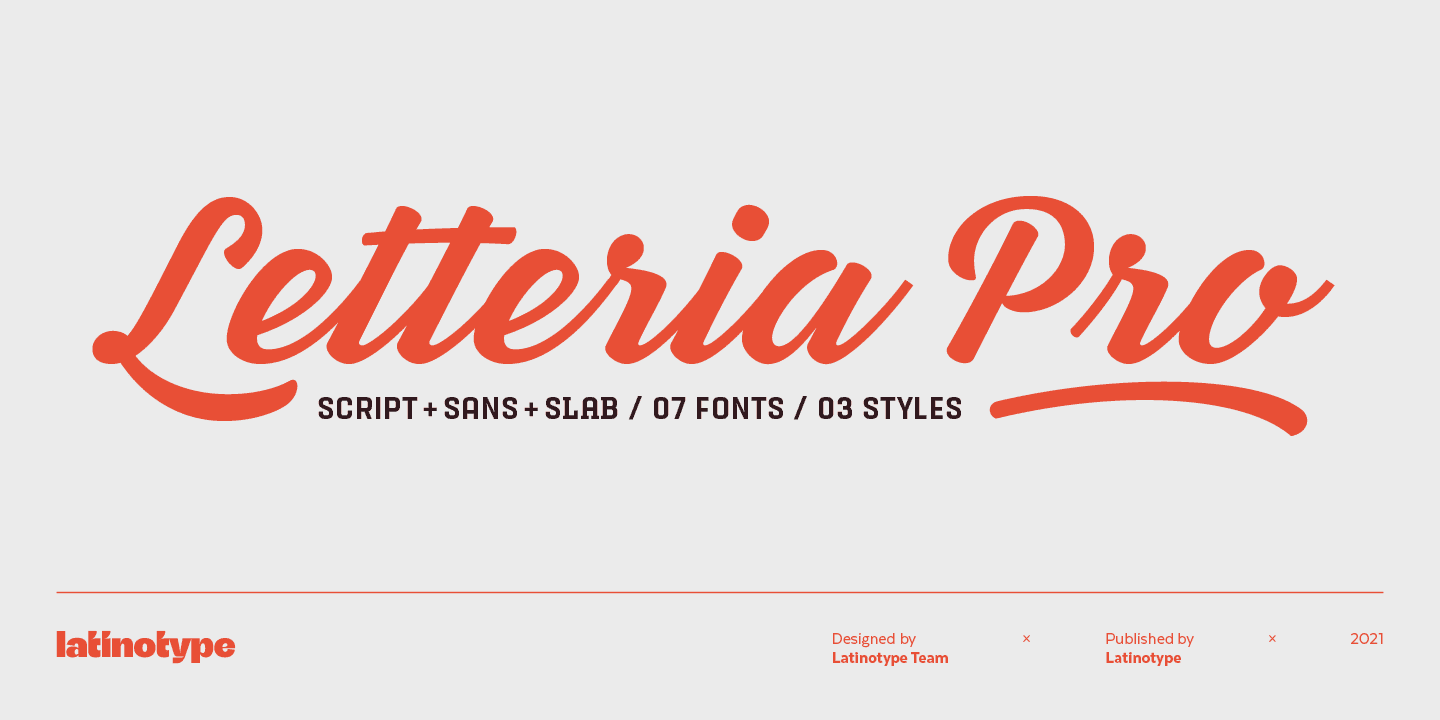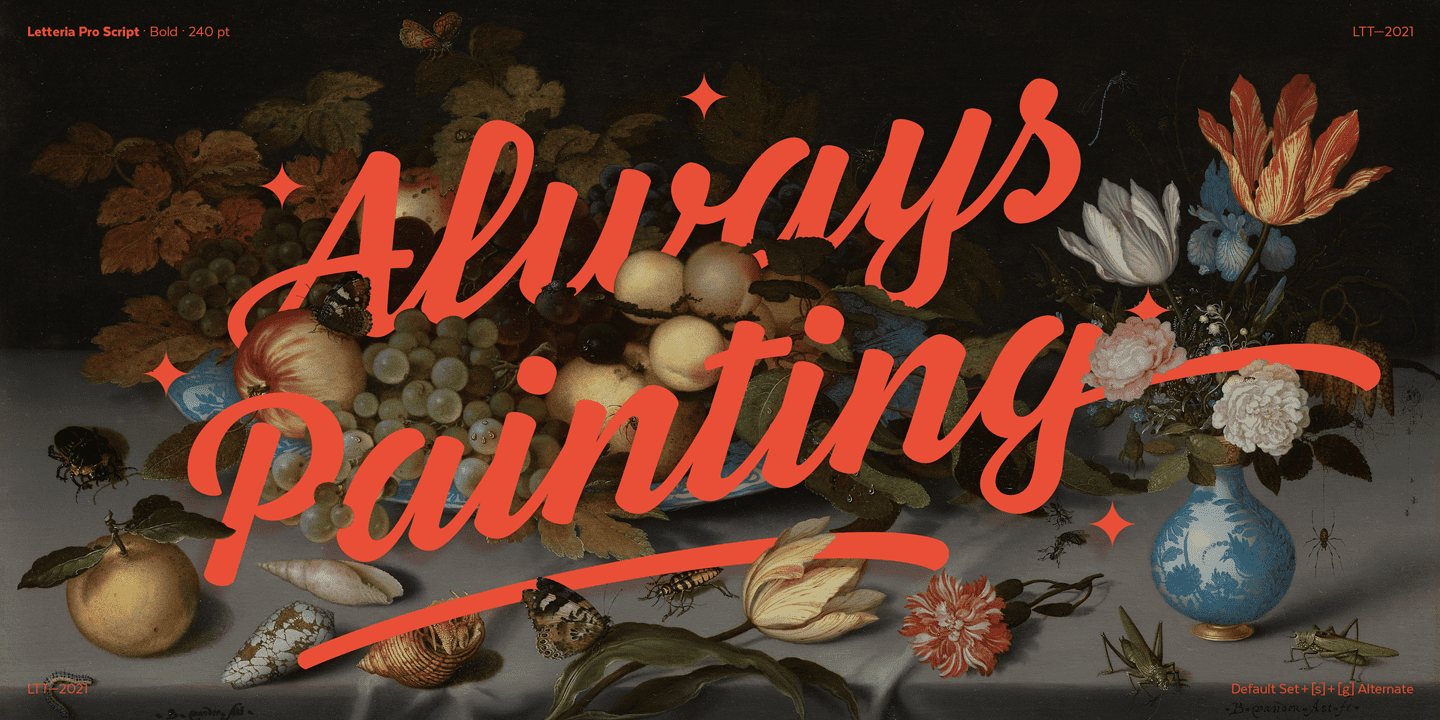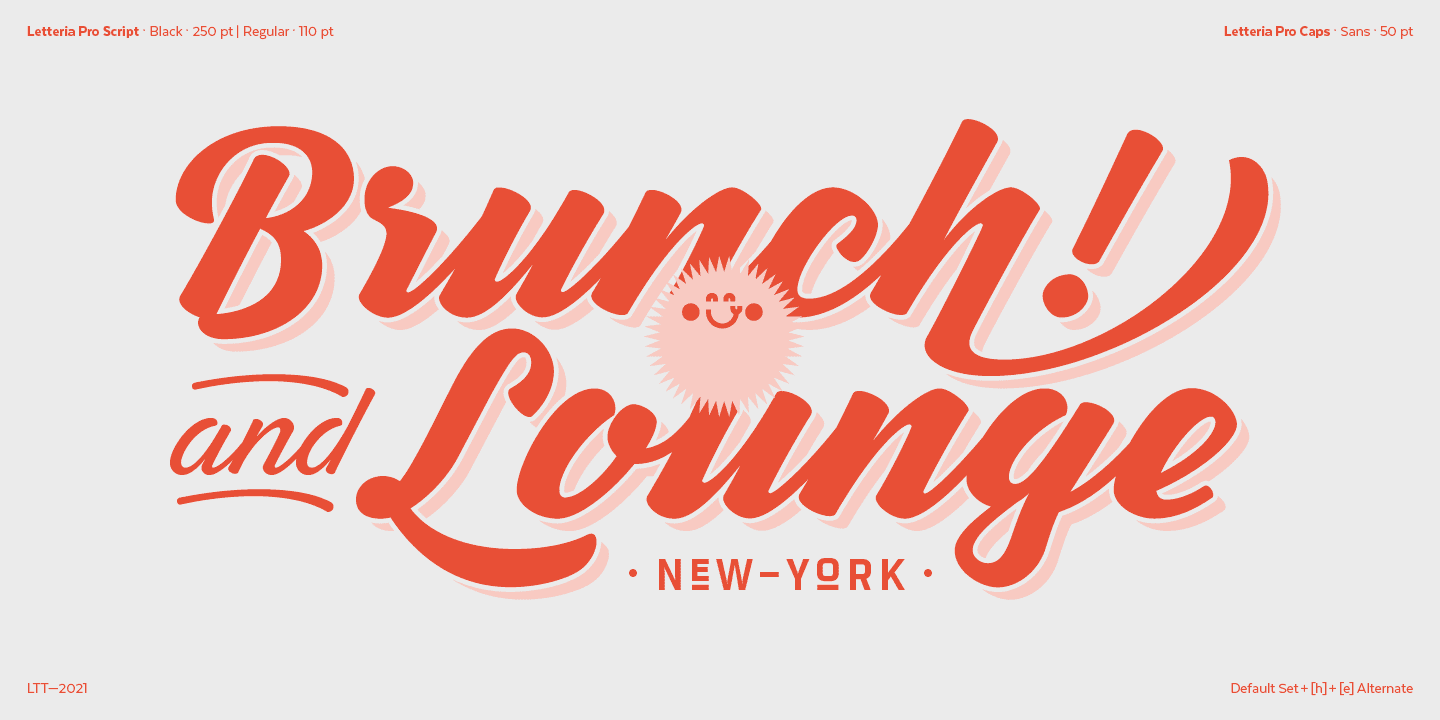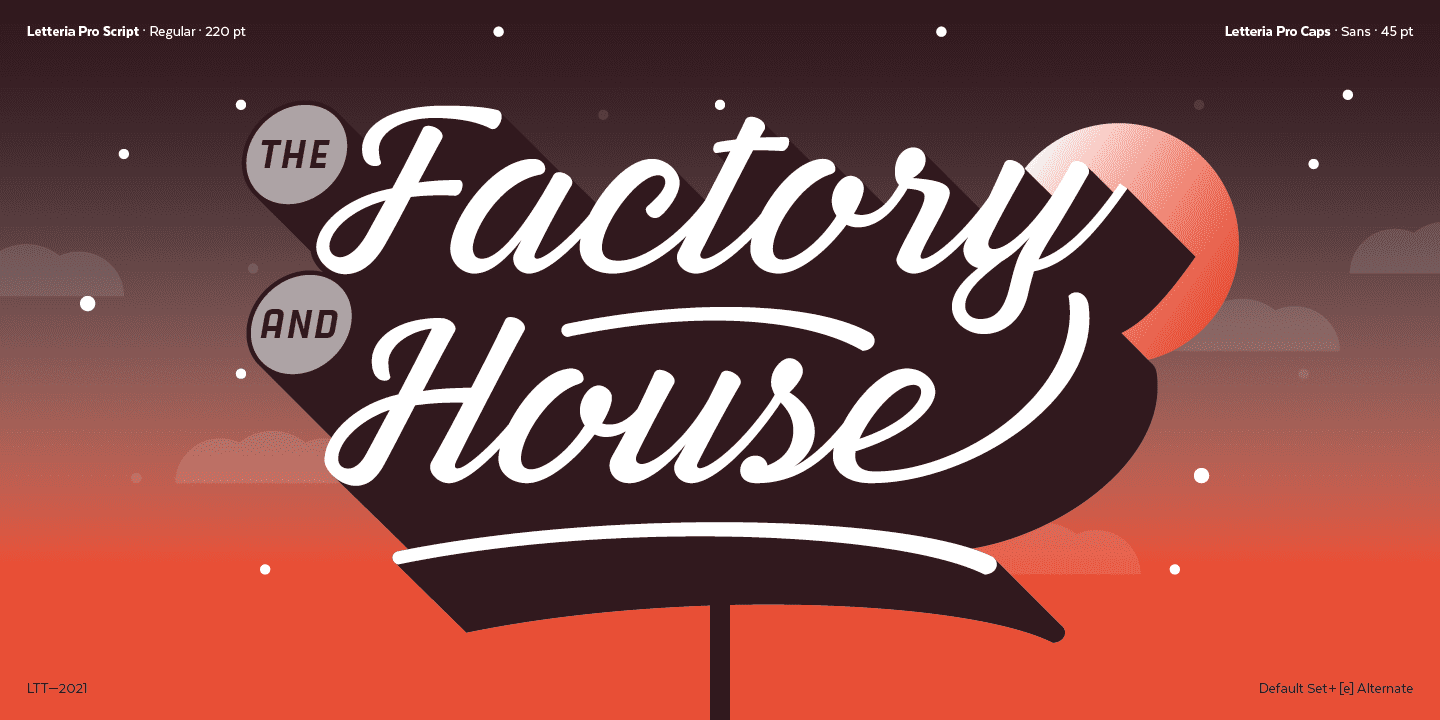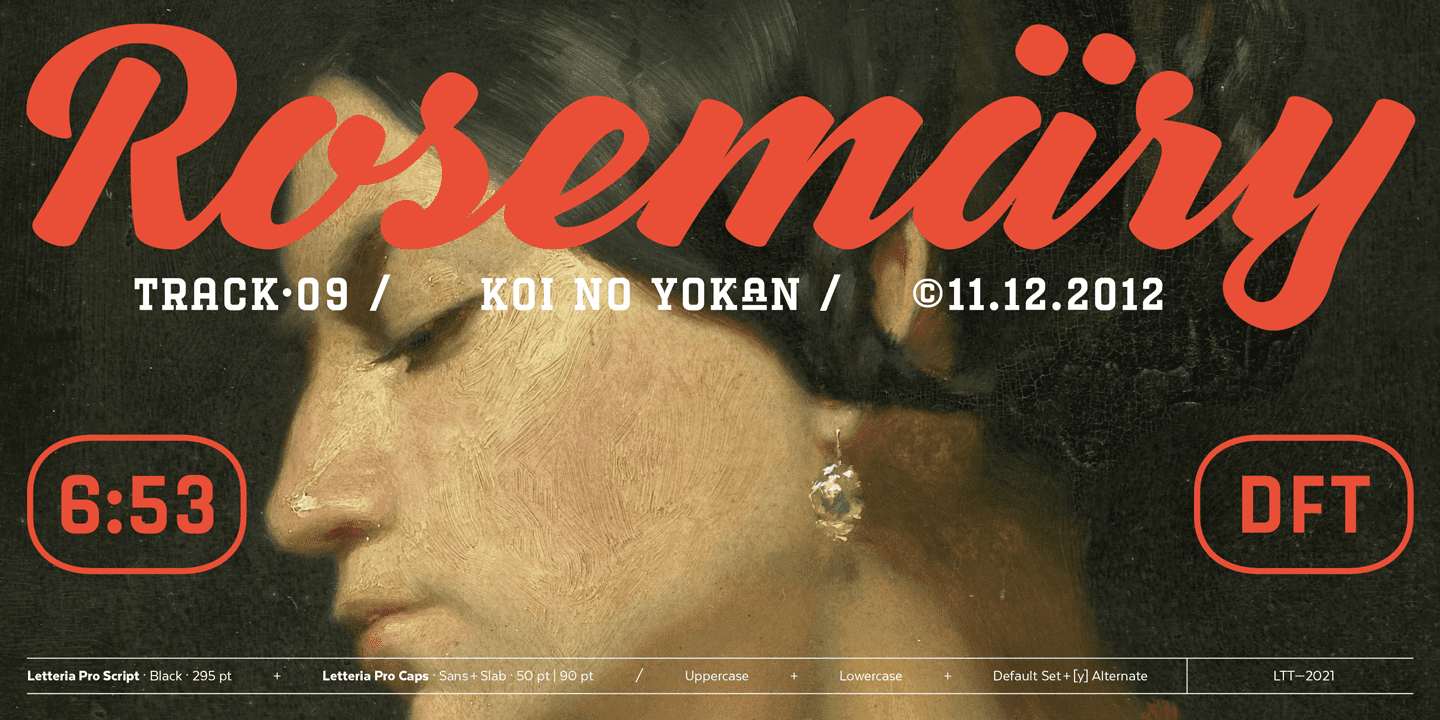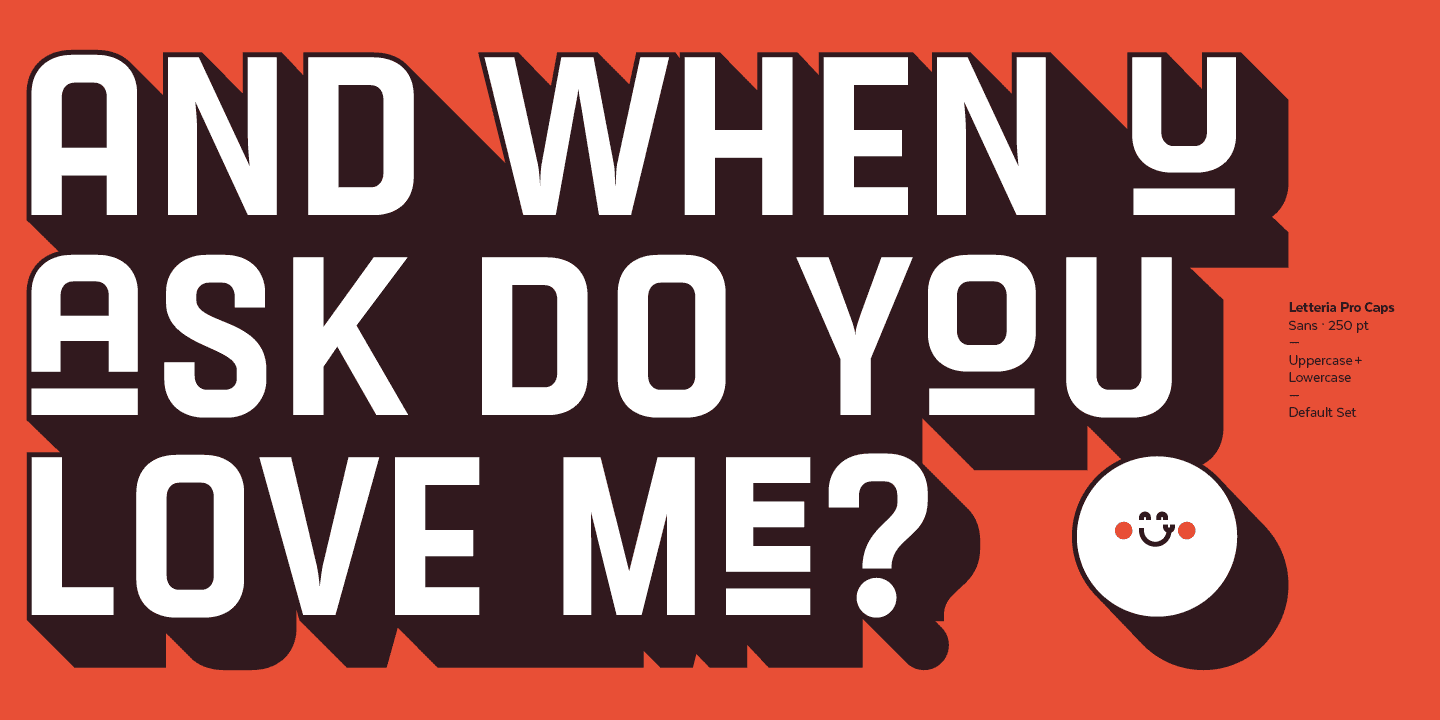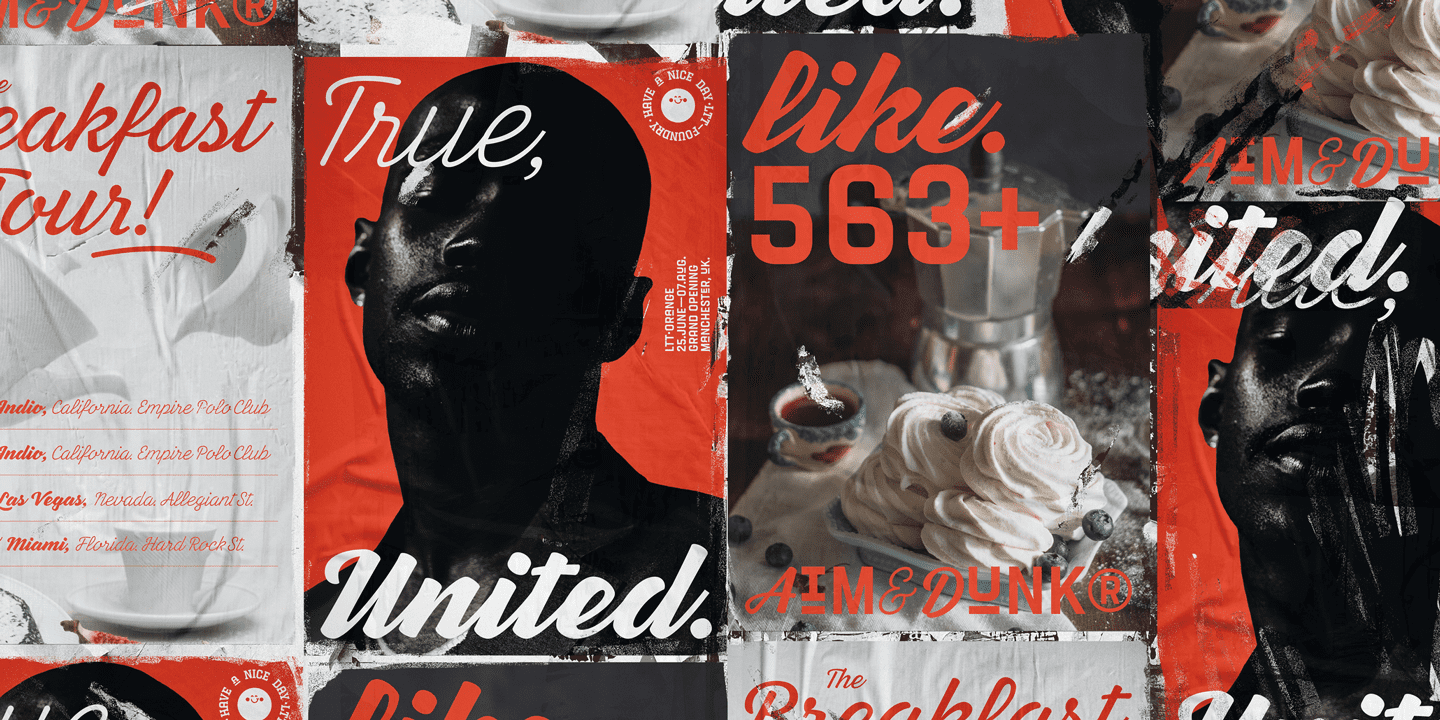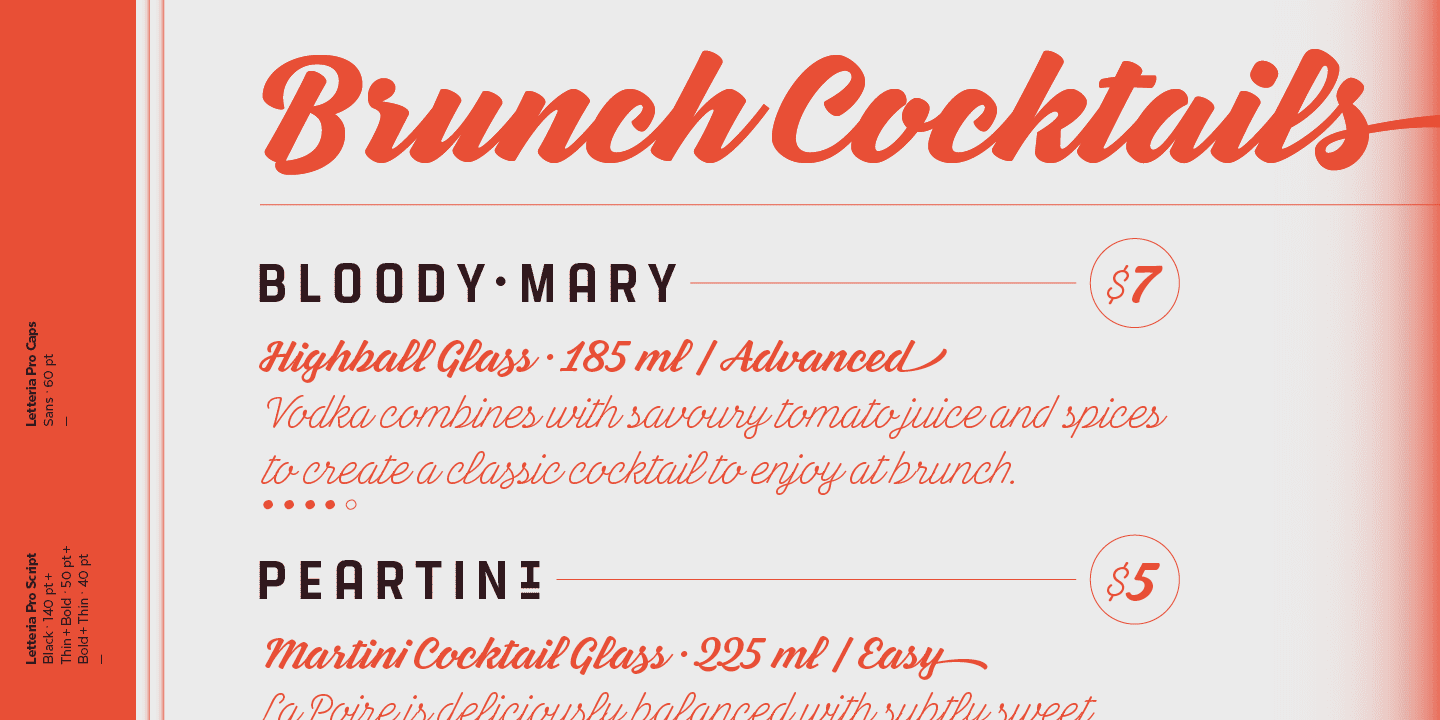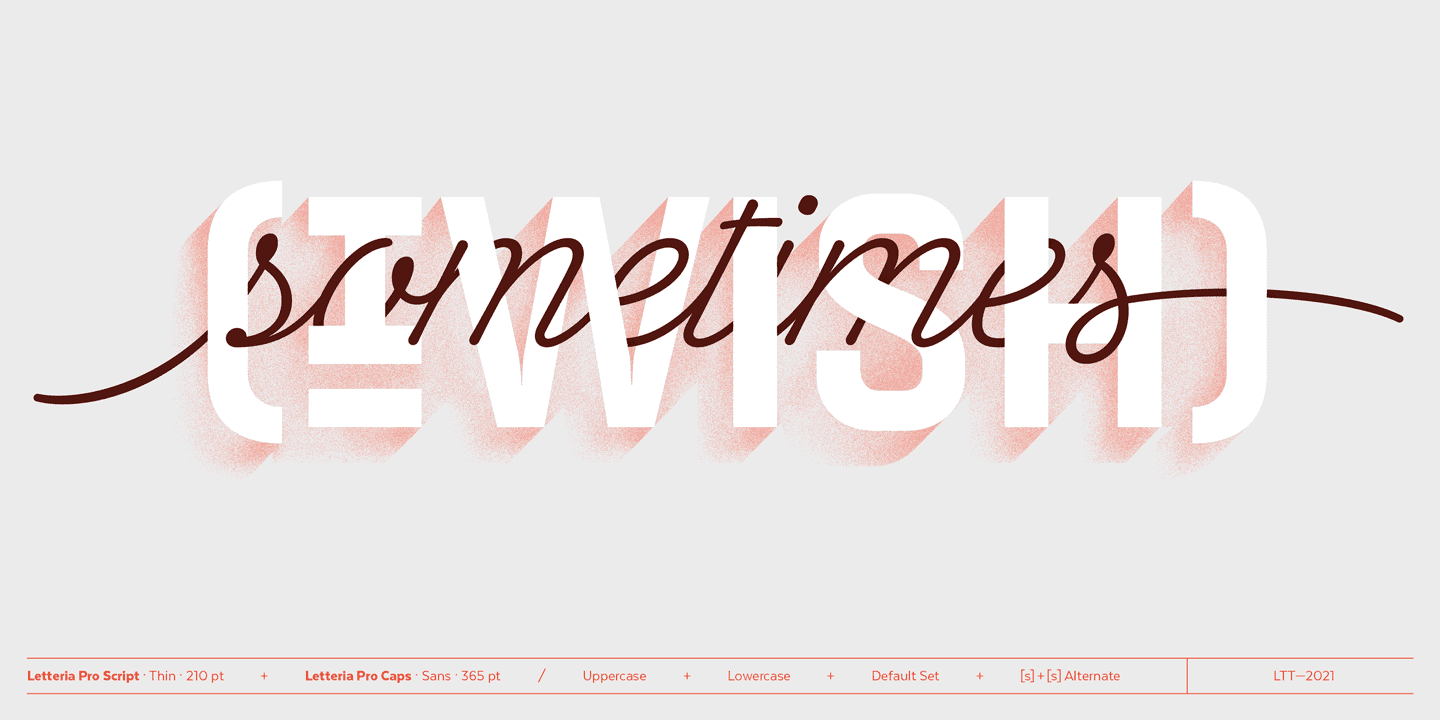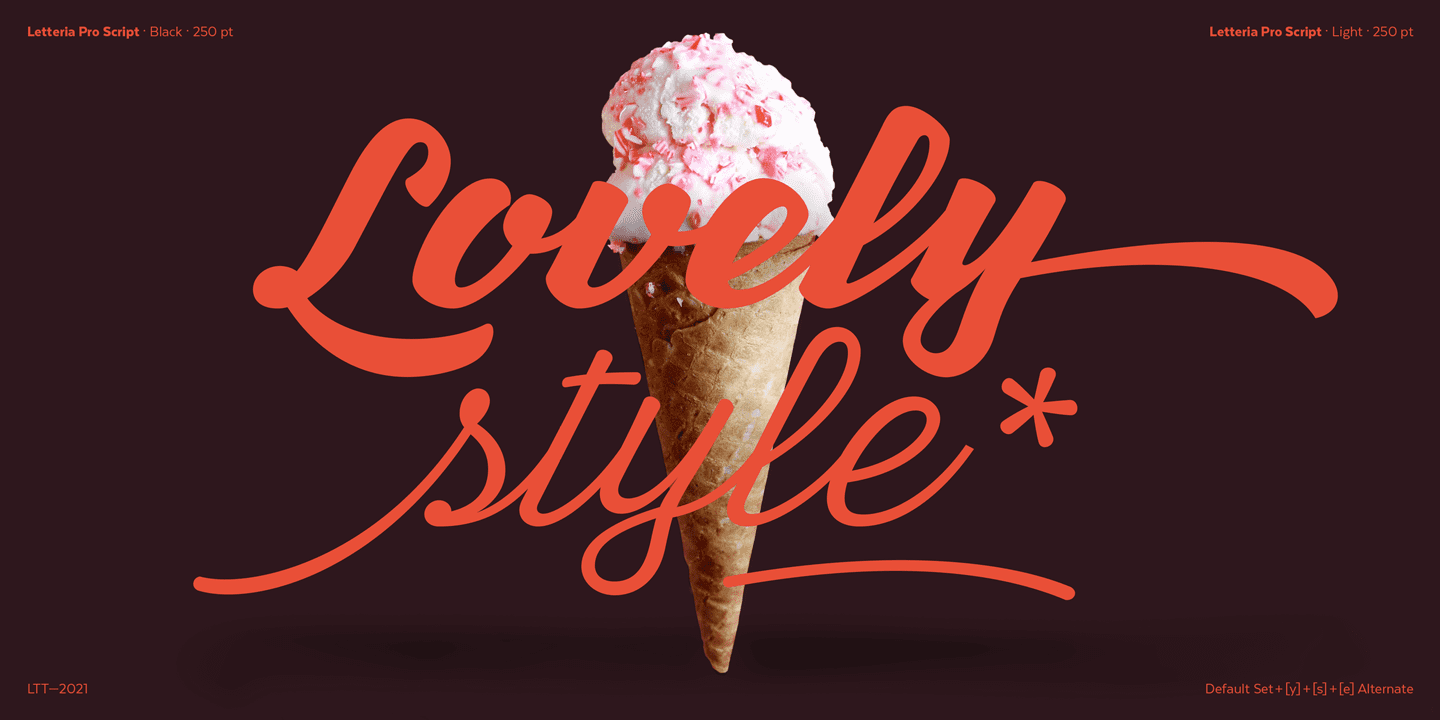
A triple threat, Letteria Pro is a typographic trio designed for branding and packaging. With the soul of a broad nib pen and the grace of a brush, it has five weights and a lot of style. In order to achieve a pragmatic contrast between a composition’s communication levels, we have created a mechanical typeface with only capital letters in sans and slab versions that elude to a De Stijl style.
Ligatures and swashes provide a plethora of options, including Thin, Light, Regular, Bold and Black weights, while its companions offer a single weight. Together, this Latinotype original covers more than 200 languages within the Latin alphabet. Yet another powerful tool for your arsenal of fonts that command consumer attention.